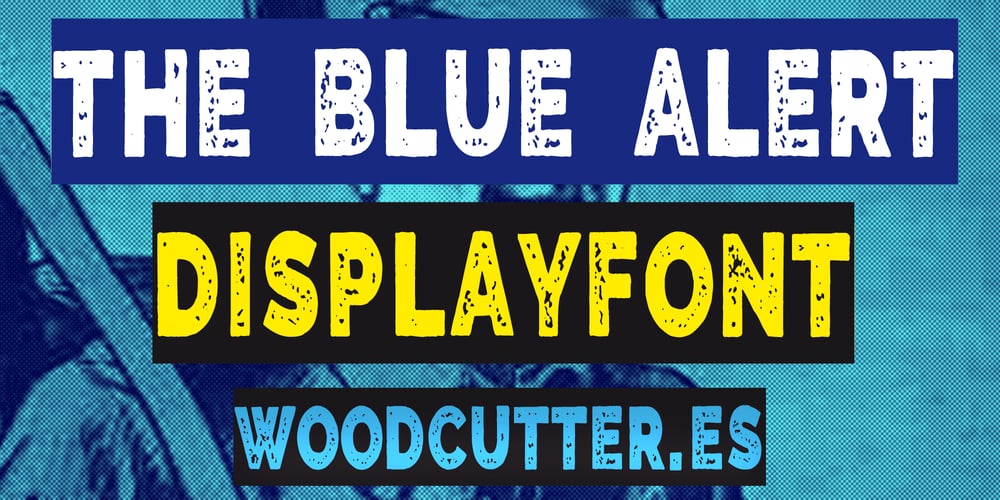
The Blue Alert Font Family was designed by Jordi Manero and published by Woodcutter. The Blue Alert contains 1 styles and family package options. “The Blue Alert” is a typeface that stands out with its slightly worn appearance, featuring white letters on a black frame, creating an eye-catching inverted effect. Its design evokes a sense of urgency and alertness, making it ideal for highlighting important or emergency messages. Perfect for posters, notices, and designs that need to grab immediate attention, “The Blue Alert” combines a modern and utilitarian style with a touch of wear that adds character and authenticity to any graphic project.–Uppercase